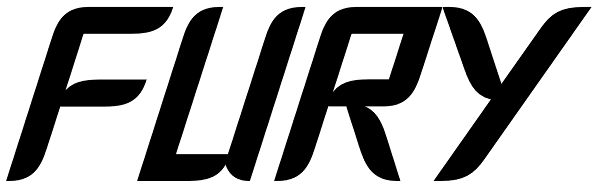
Fury
Get your goggles on. You're on your way to the Metaverse, where no subject is off limits, everyone has an avatar, and reality is subjective. The world can be turned off or on at your very whim. Never mind the markets, resource counters, national...